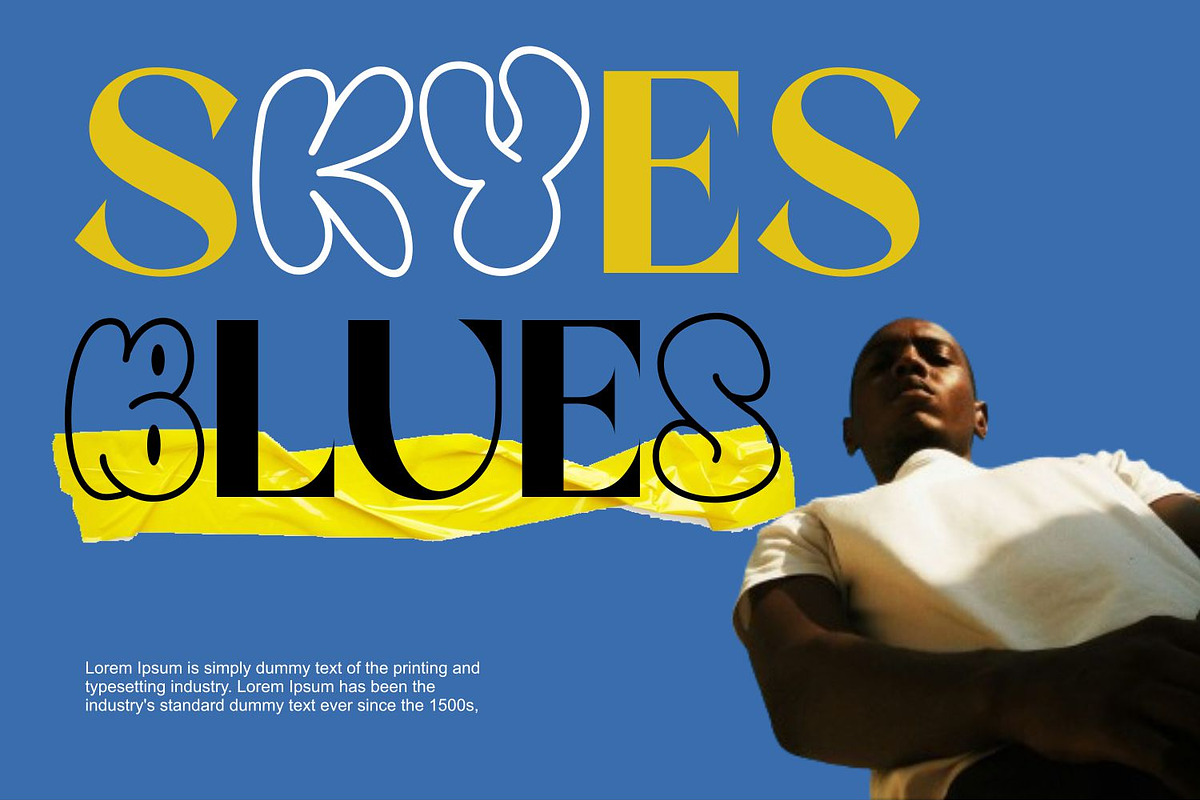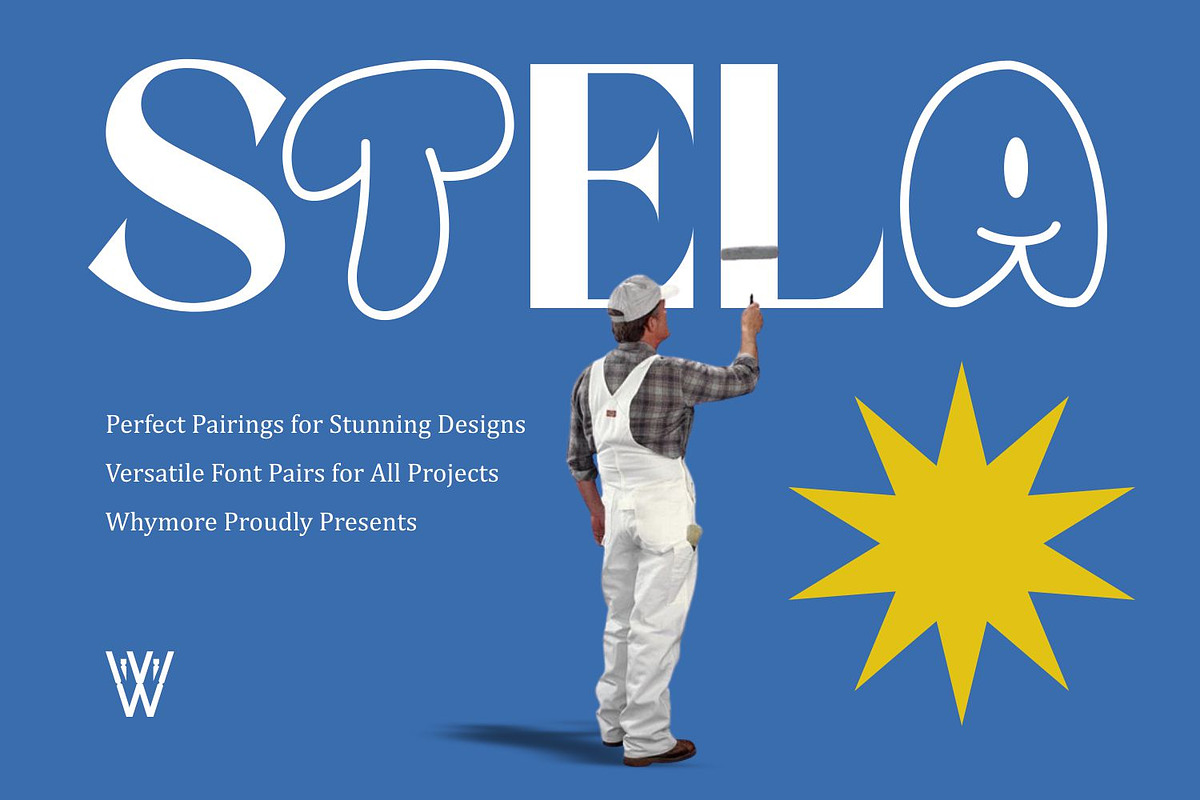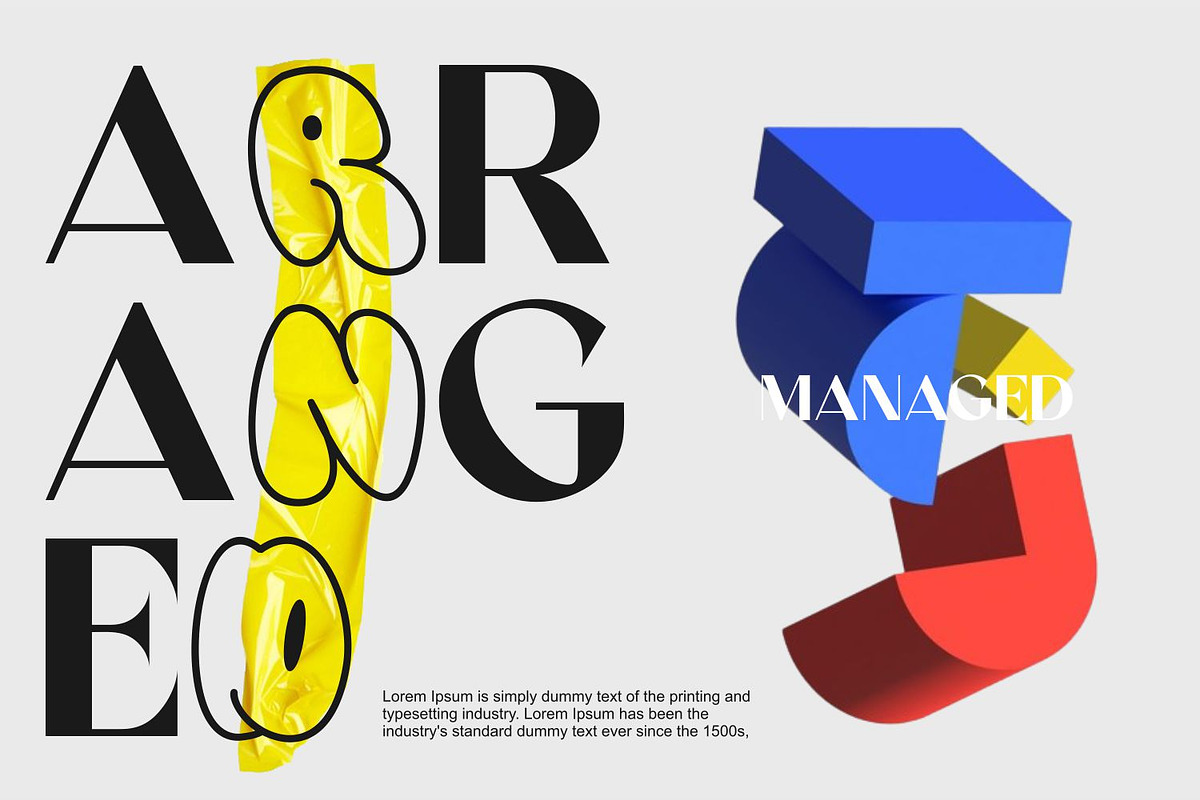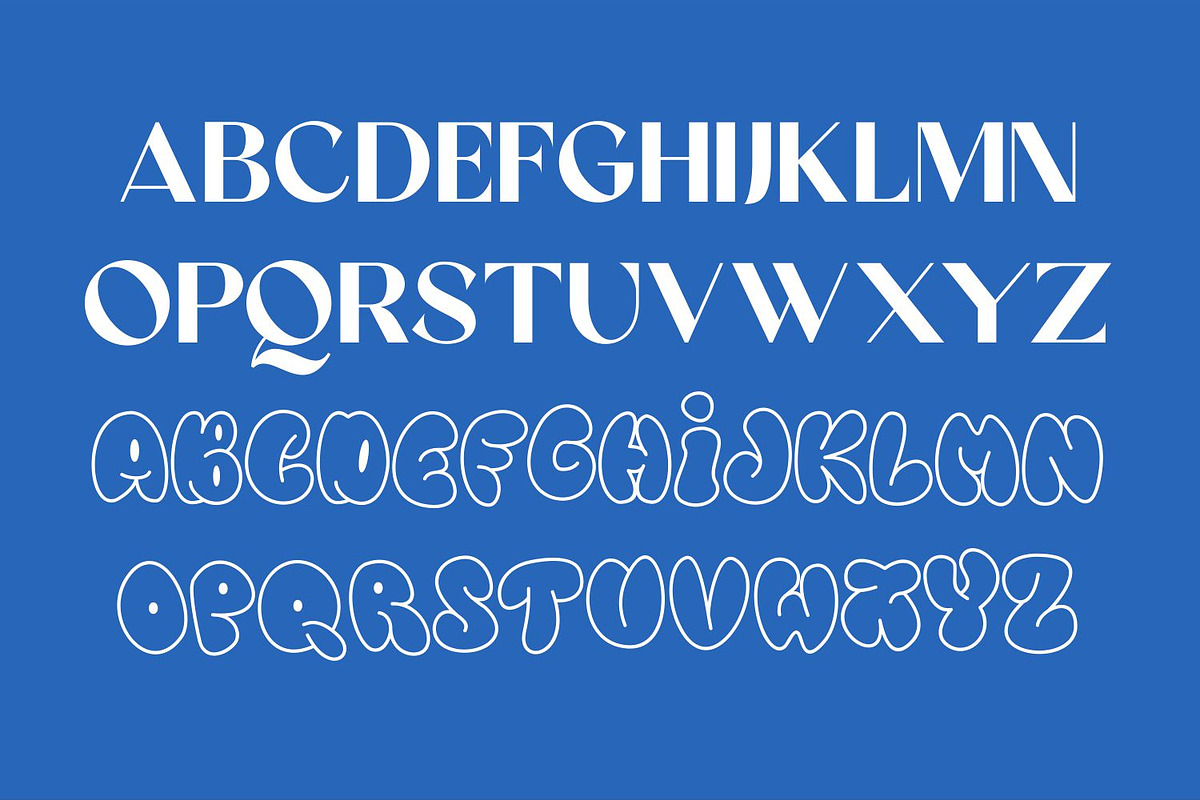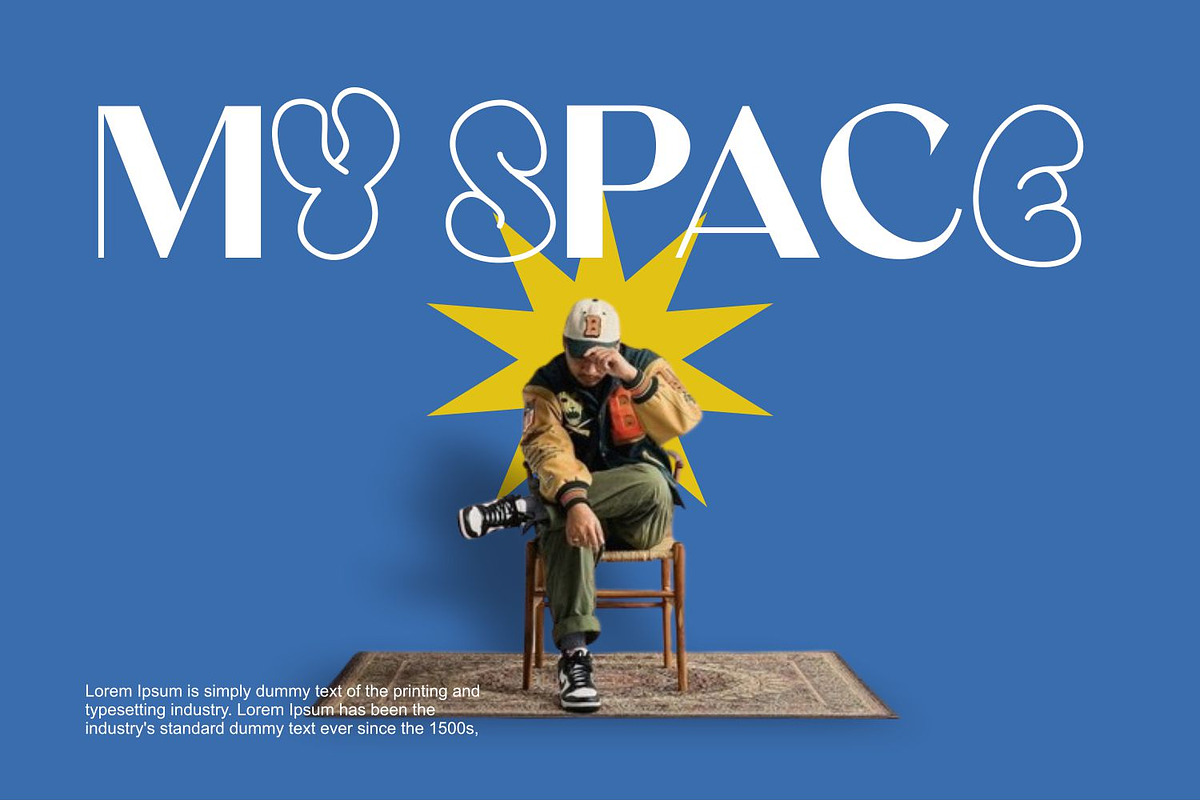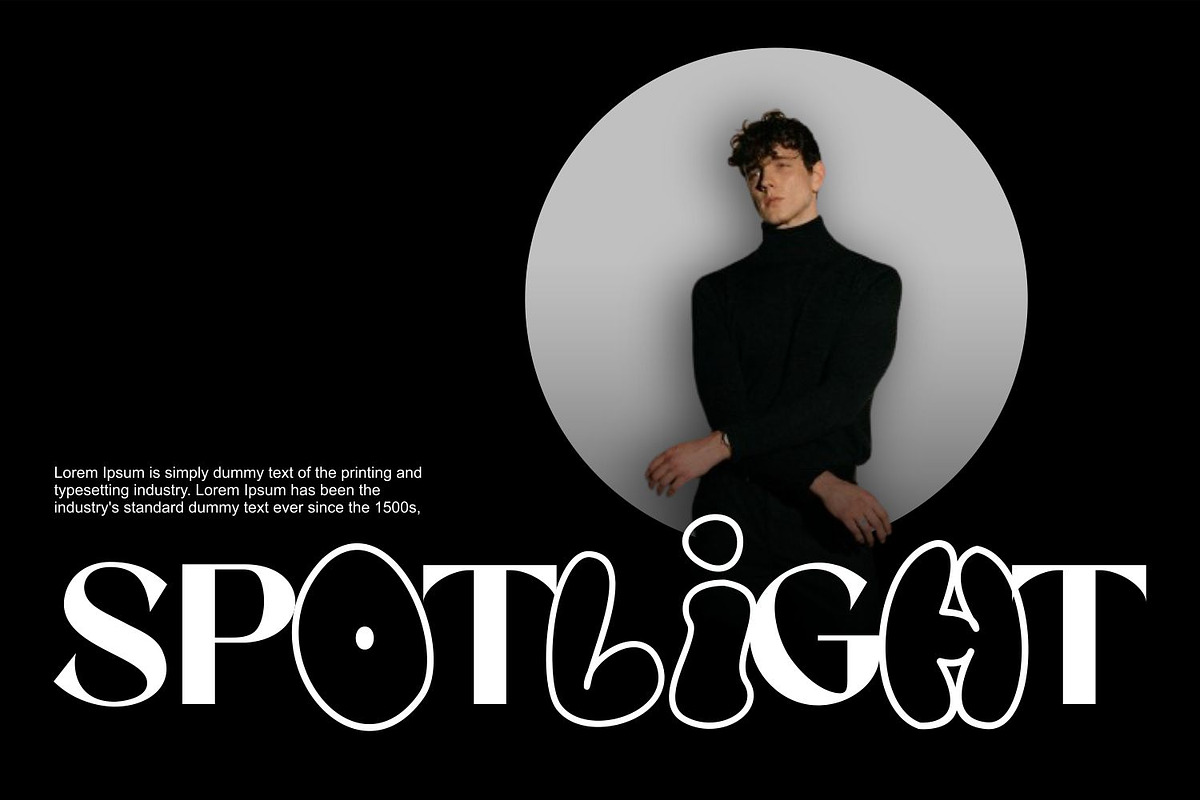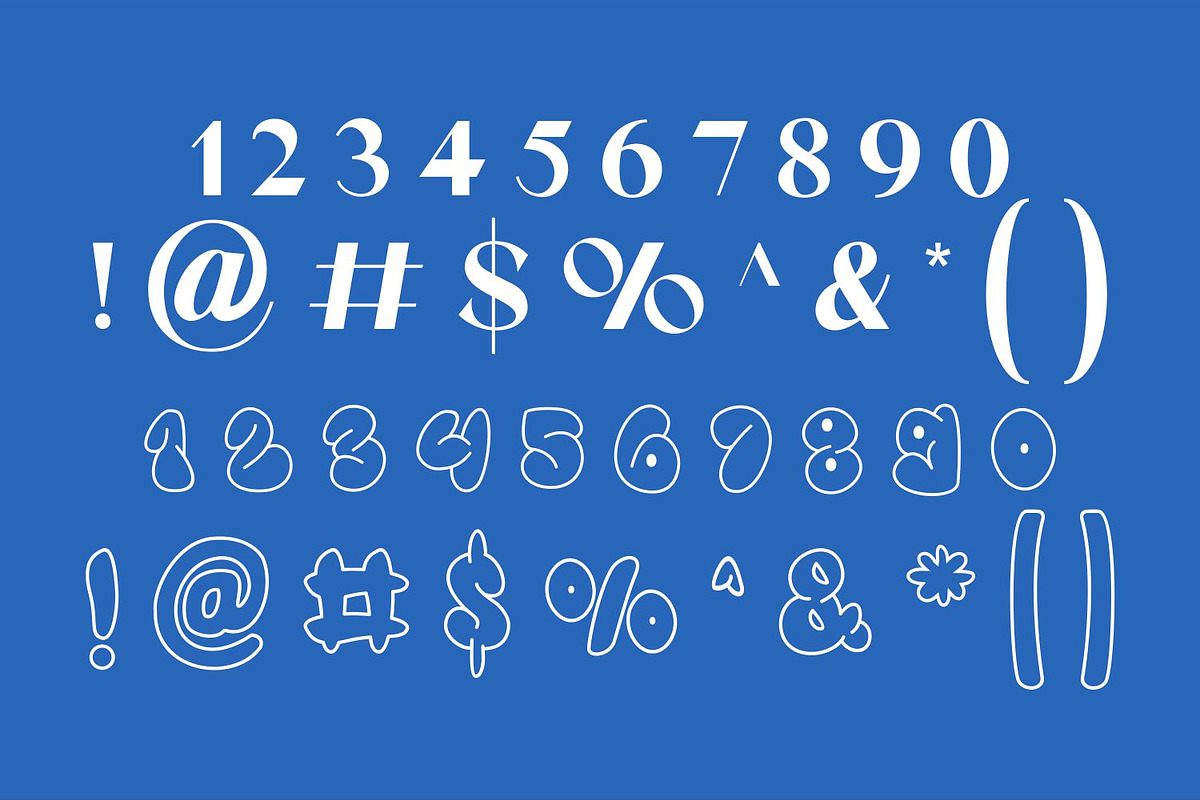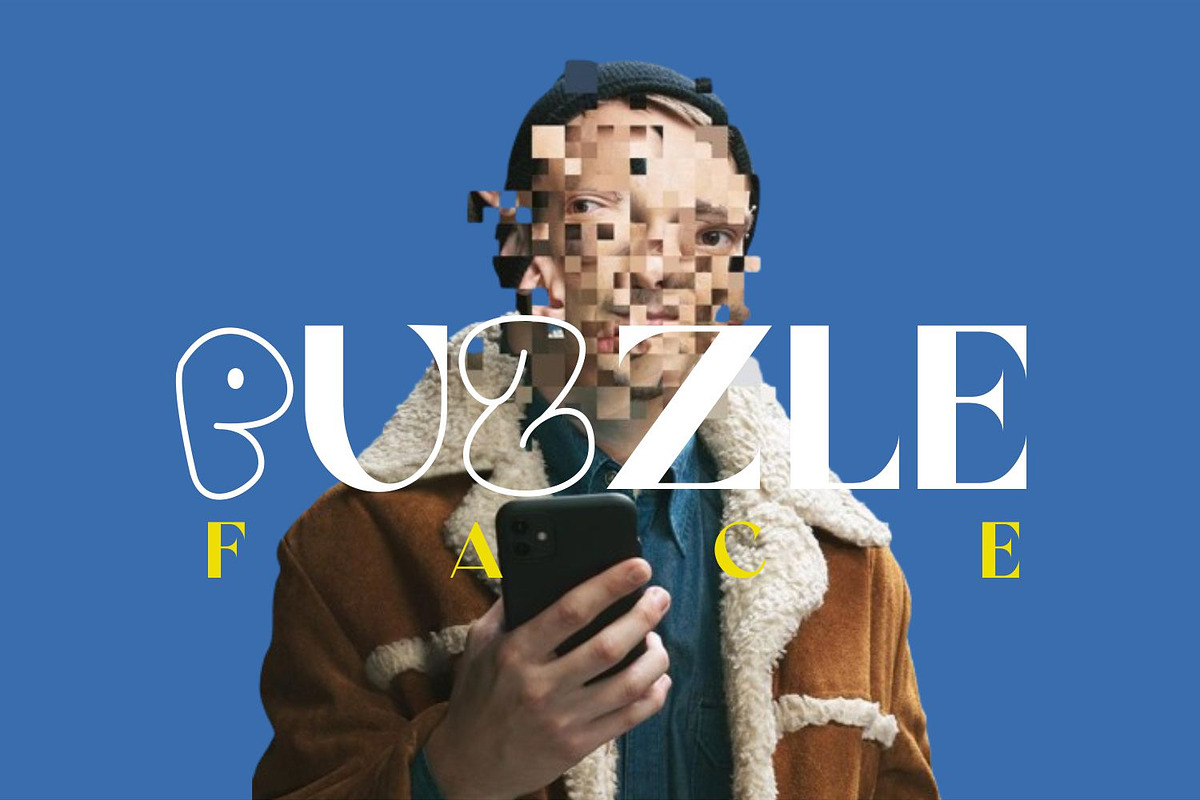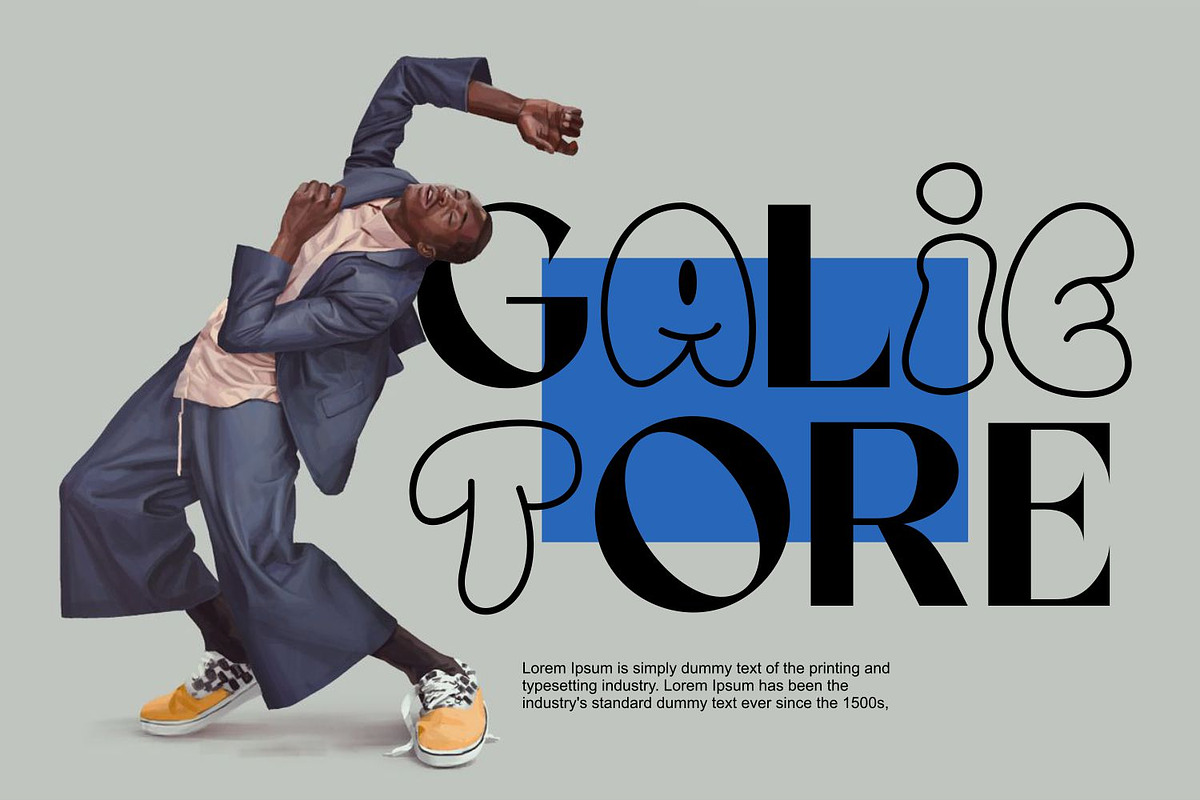
Stela Serif Grafity Font Duo
Enhance your design projects with the Stela Font Duo
Stela takes your typography to the next level, combining a modern Sans Serif font with a creative Grafity font. Its unique synergy and stylish aesthetics make it perfect for contemporary designs, ensuring it remains timeless across various design trends.